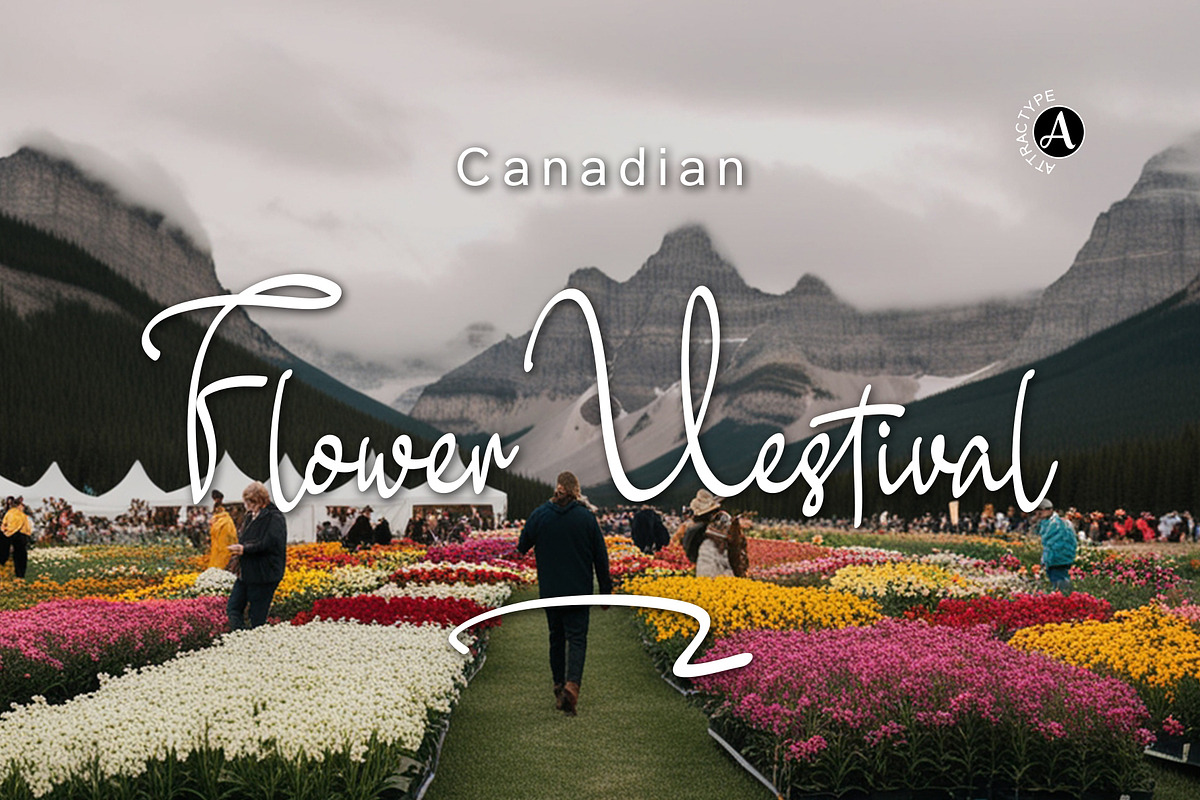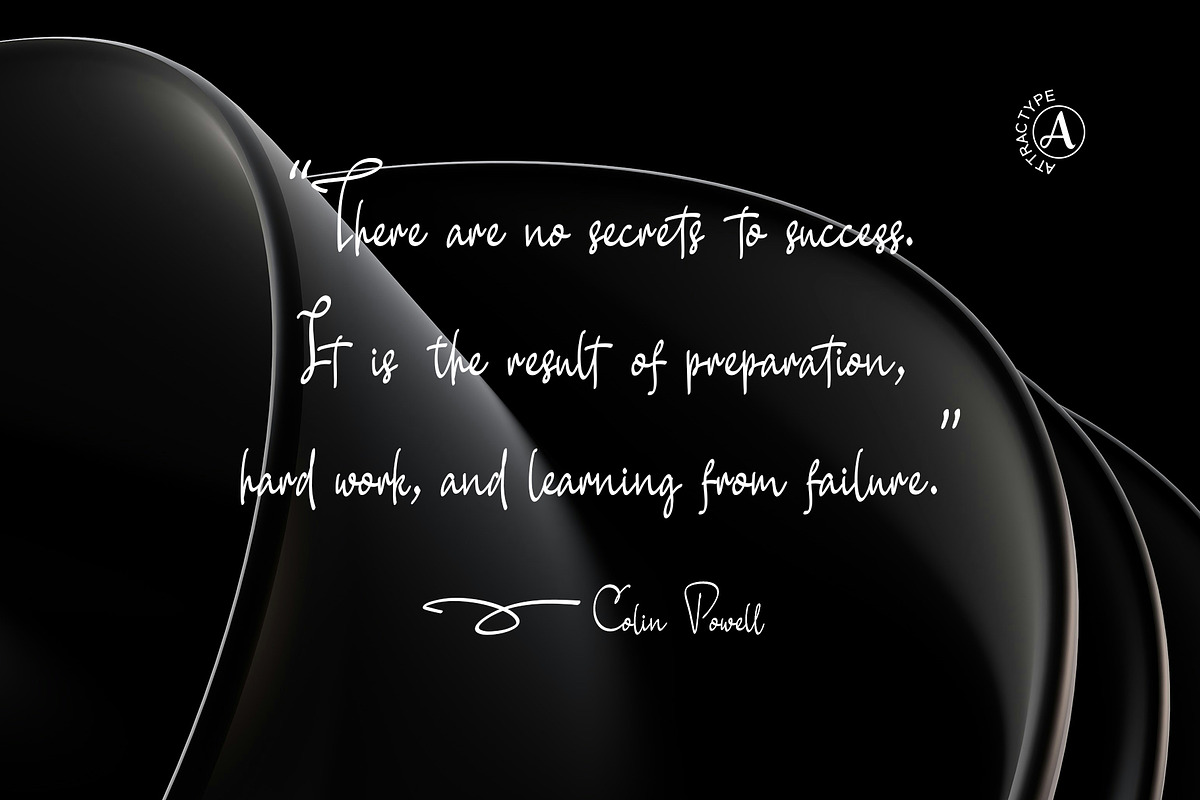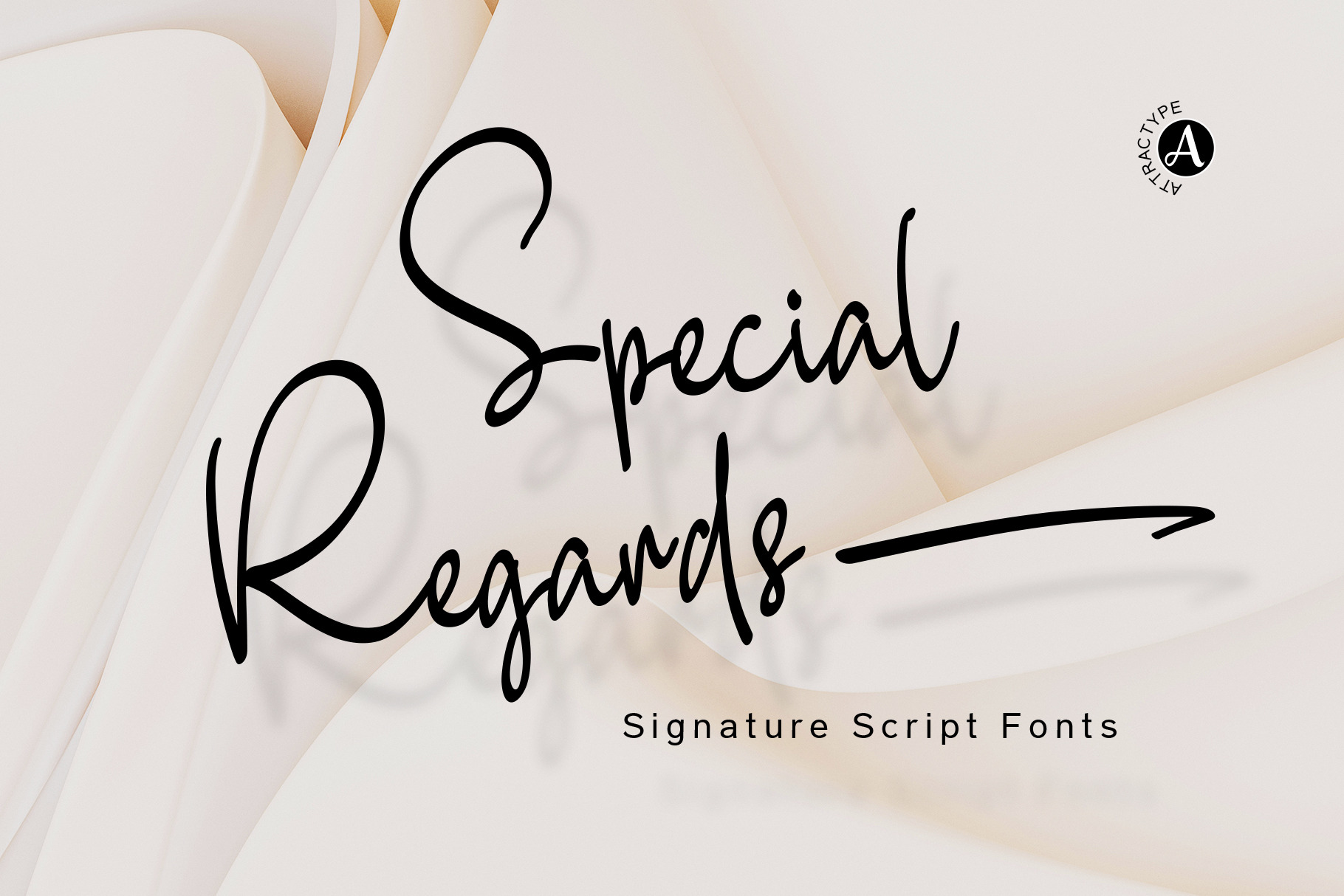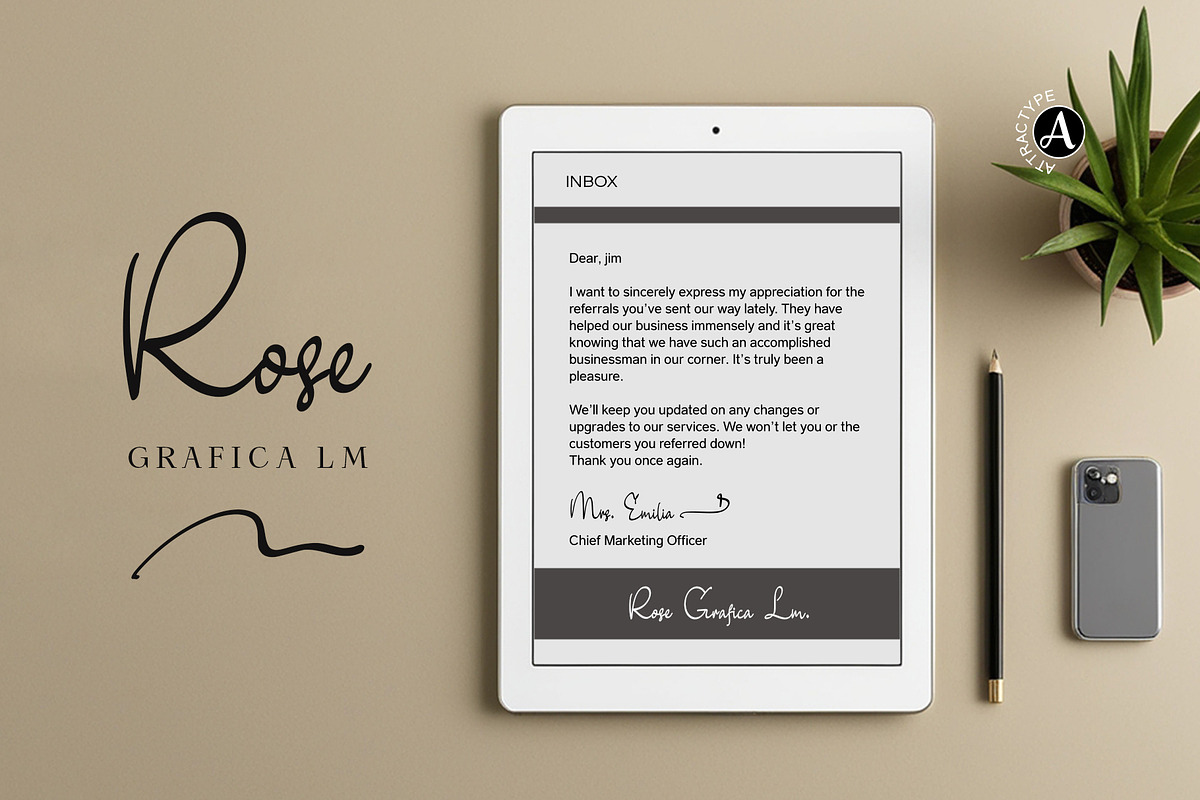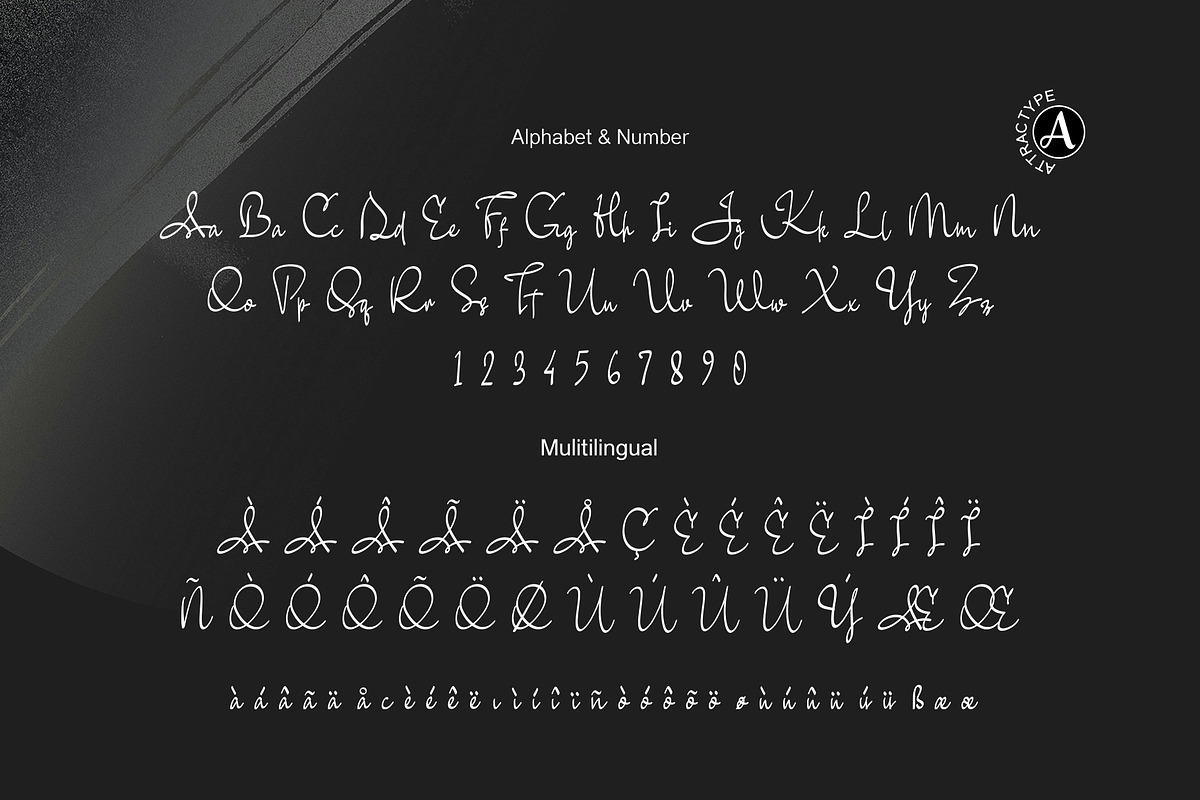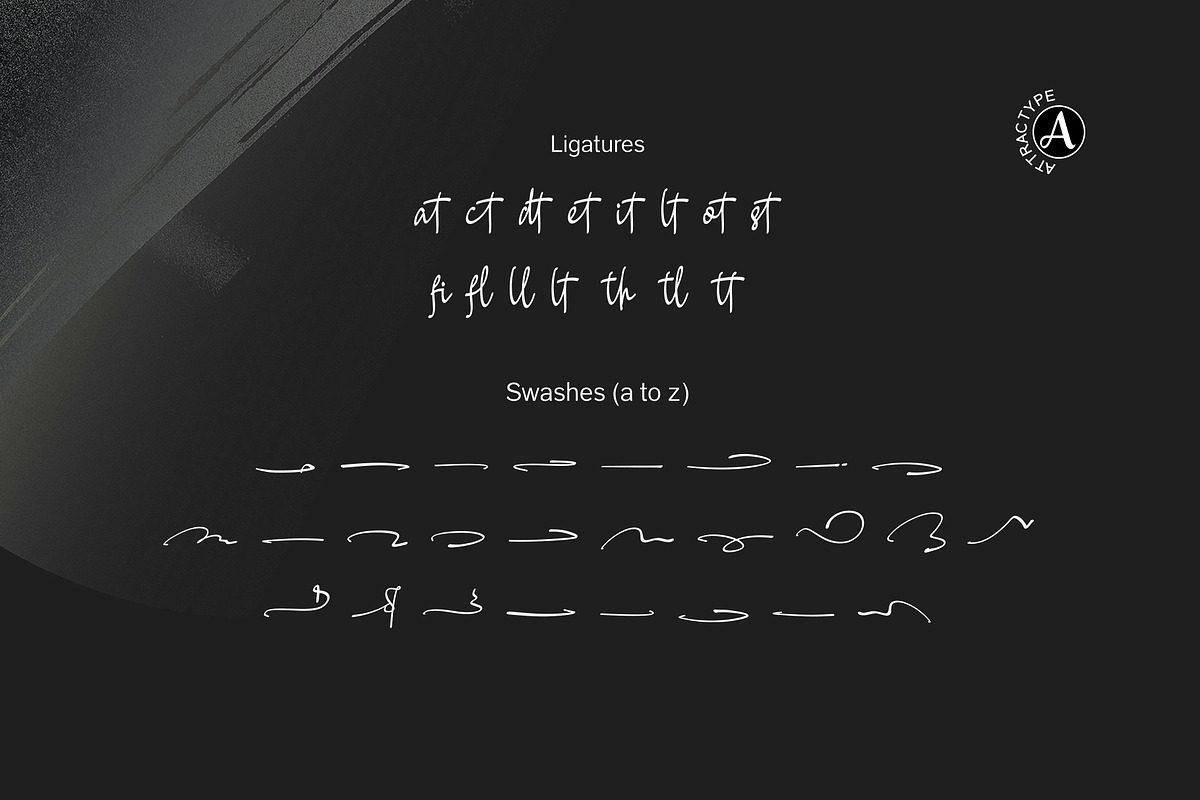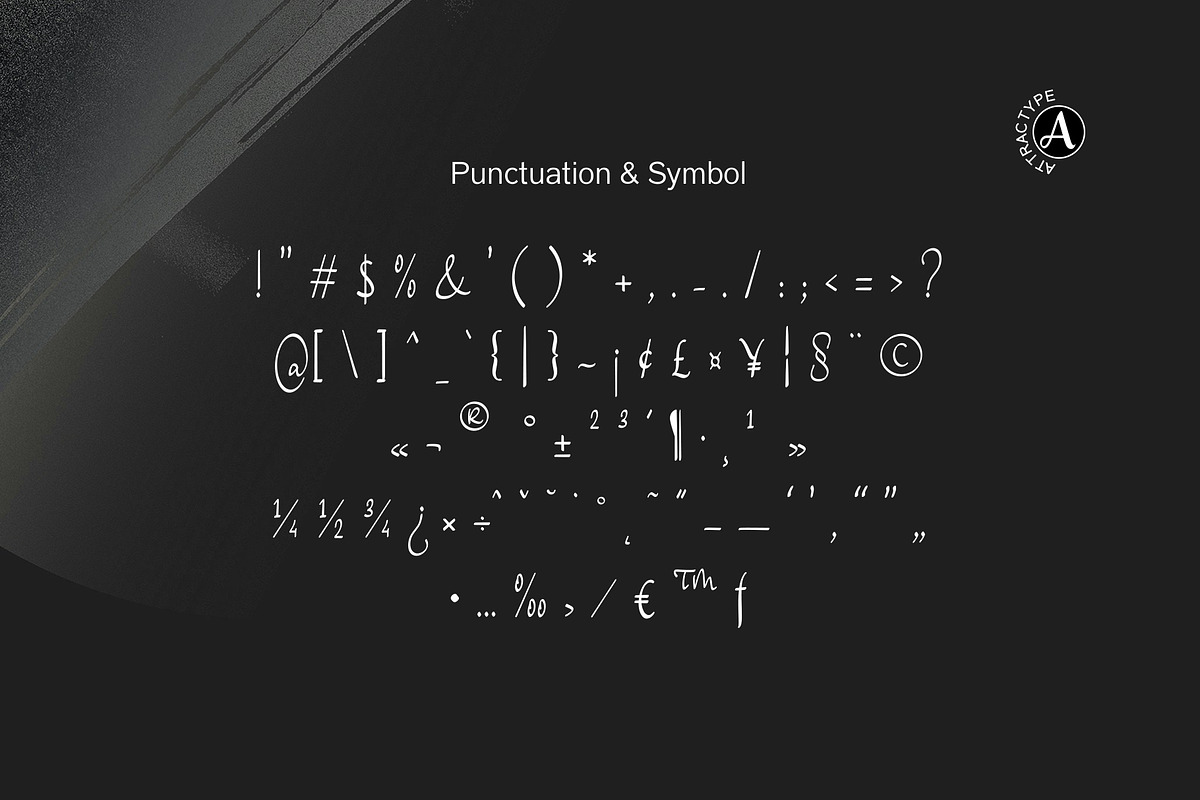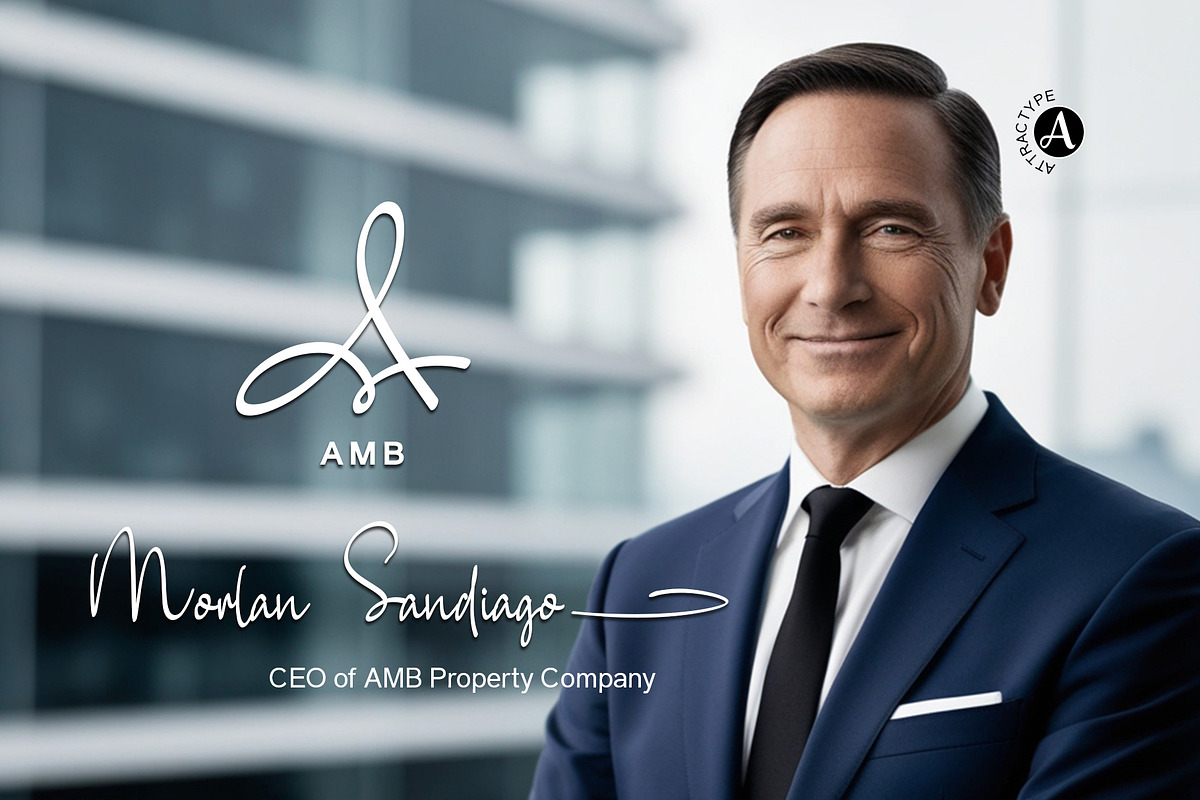
Special Regards Signature Fonts
Special Regards - stylish, modern and elegant handwritten signature font. Ideal for designing personal signatures, corporate identities, cursive logos, quotes, branding, headlines, restaurant menu titles, t-shirts and more.
With ligature and swash features in this font, its appearance becomes attractive and natural.
The swash feature can be accessed on all lowercase characters or underscore styles or directly inserted via PUA glyphs. Don't forget to enable or disable the feature as needed.